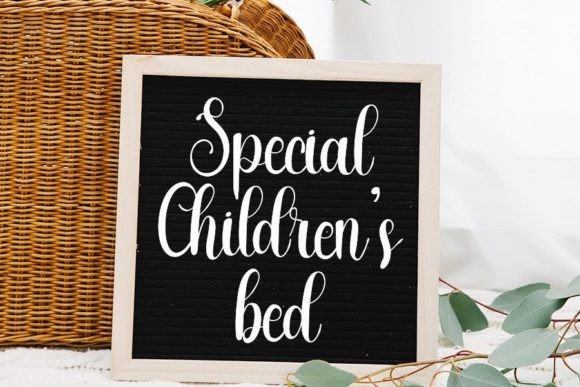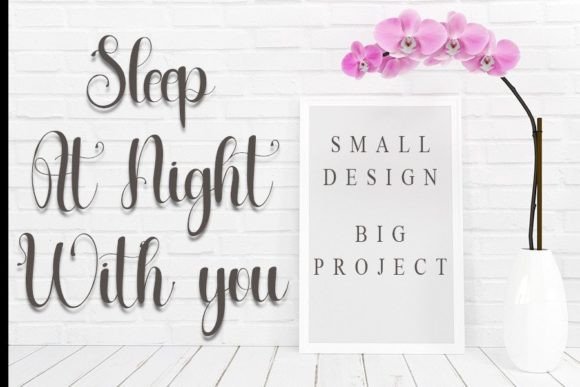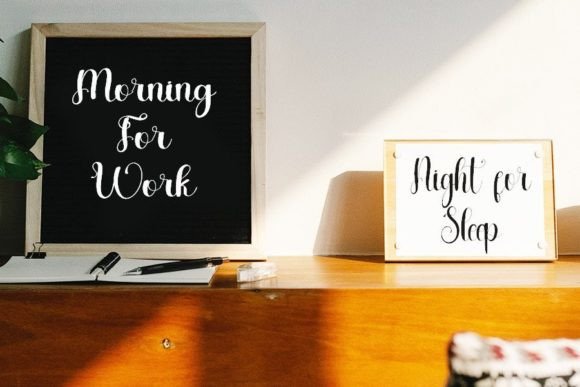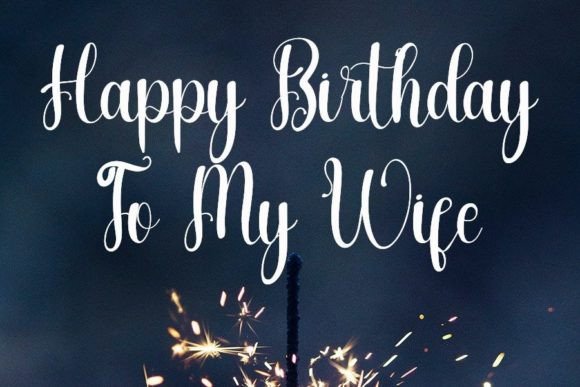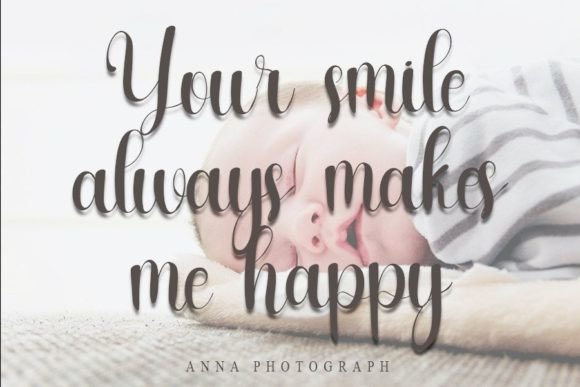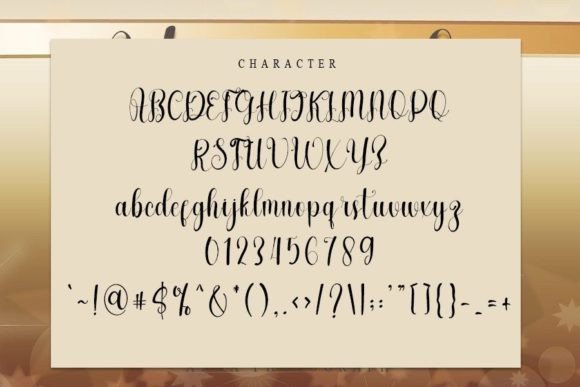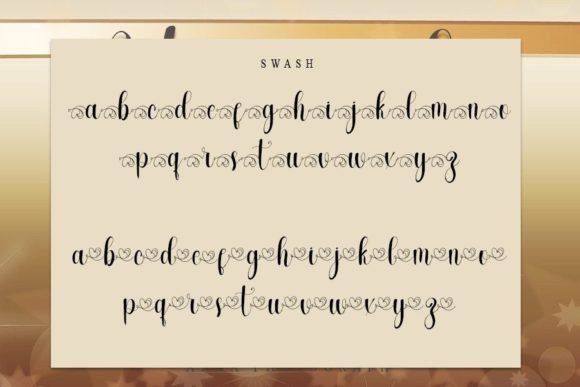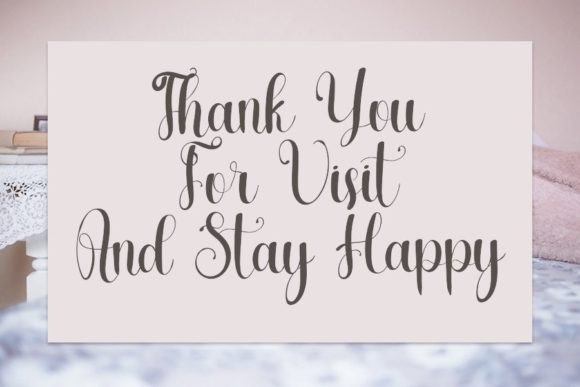
Sleeply Font
About Sleeply Font
“Sleeply” is an exquisite and refined script font that exudes class, elegance, and modern sophistication. With its stylish aesthetic, this font becomes a versatile choice for a variety of design applications, including logos, branding, invitations, stationery, wedding designs, and social media posts.
The sleek and polished appearance of “Sleeply” adds a touch of luxury to your designs, making it suitable for projects that require a sophisticated and upscale look. Whether you’re crafting a logo for a high-end brand or designing elegant wedding invitations, this font provides a timeless and tasteful solution.
One of the notable features of “Sleeply” is its extensive character set, which includes amazing glyphs and ligatures. The font is PUA encoded, ensuring easy access to these design elements. This feature enhances your creative freedom, allowing you to customize and personalize your designs with unique and visually appealing details.
Embrace the versatility of “Sleeply” as it seamlessly adapts to different design contexts, bringing a sense of refinement to your creative projects. Its modern yet timeless quality makes it a reliable choice for conveying a sophisticated aesthetic across various mediums.
Whether you’re working on digital platforms or print materials, “Sleeply” stands ready to enhance your visual communication with its graceful and well-crafted letterforms. As you explore the possibilities offered by this font, you’ll find that it transforms your design concepts into captivating and memorable creations.
Incorporate “Sleeply” into your design toolkit to elevate your projects, leaving a lasting impression with its combination of elegance, modernity, and refined aesthetics. With its PUA encoding and versatile design elements, this font is an asset that empowers you to create stunning and sophisticated visuals.